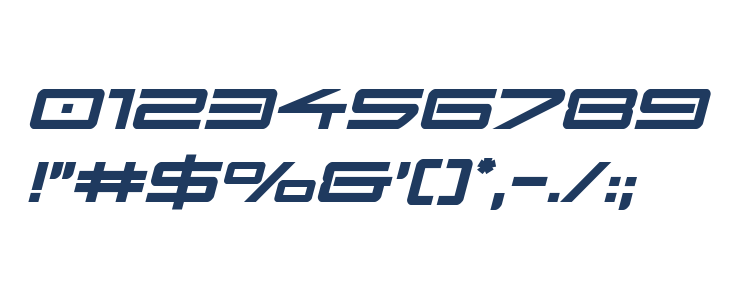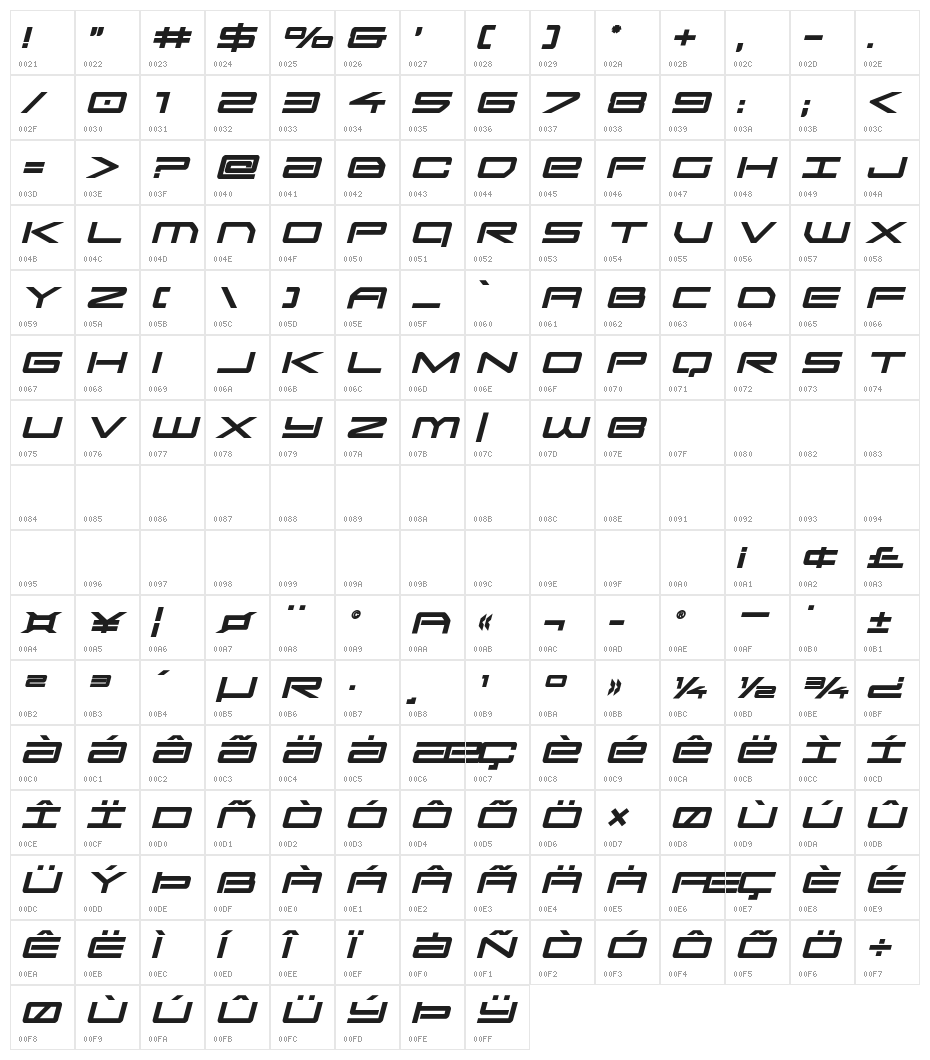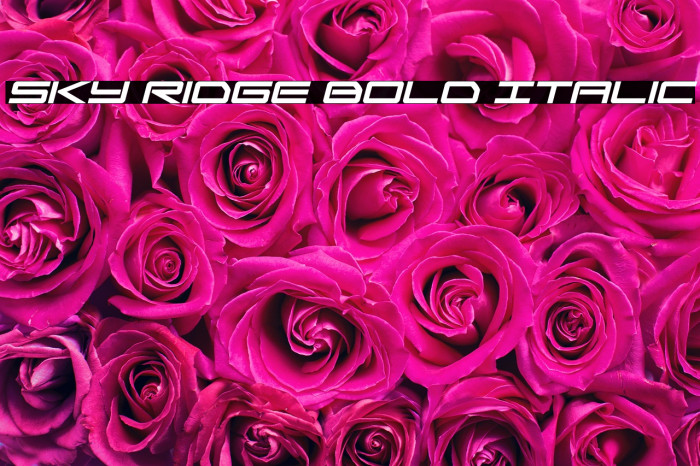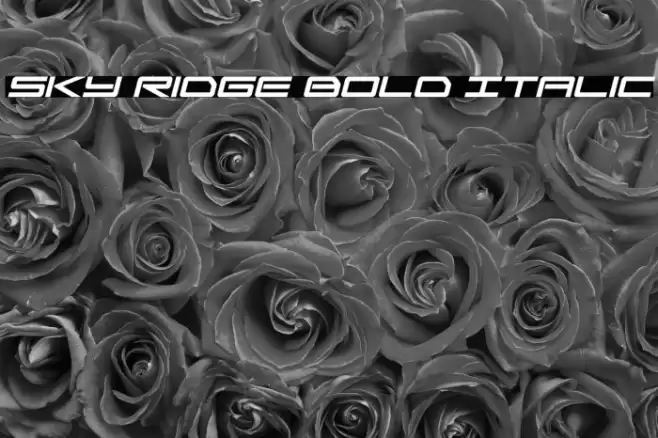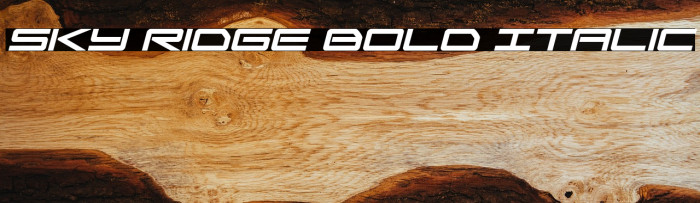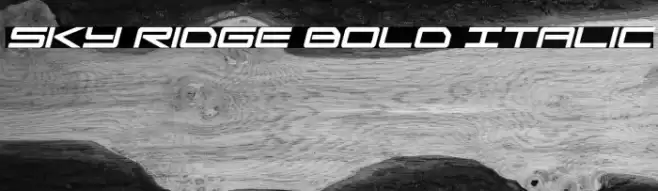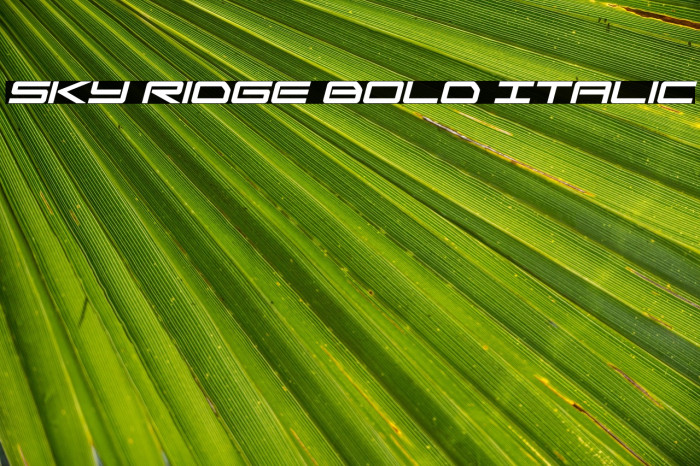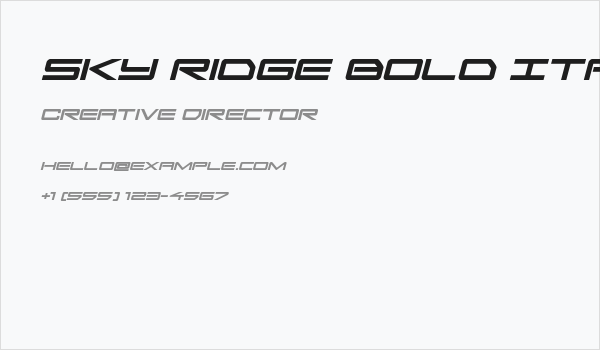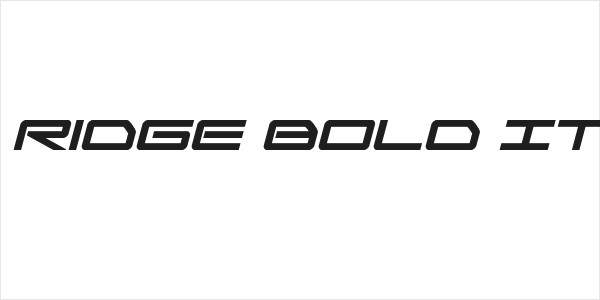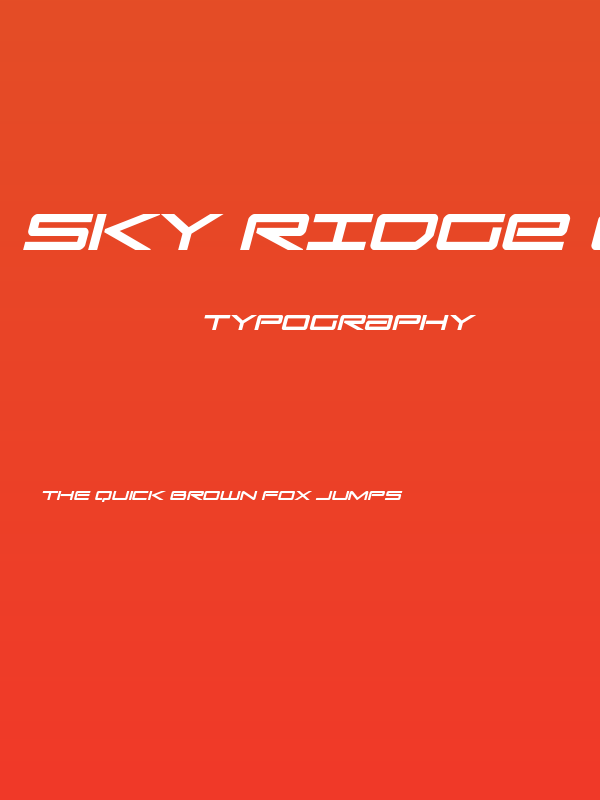
Sky Ridge Bold Italic Font
Sky Ridge Bold Italic Description
This font features a futuristic and sleek design, characterized by its bold and italicized style. The letters are slightly slanted, giving a sense of motion and dynamism. The strokes are consistent in thickness, providing a uniform appearance across all characters. The font has a geometric structure with sharp angles and clean lines, which adds to its modern and tech-inspired aesthetic. The numbers and special characters maintain the same stylistic elements, ensuring cohesion throughout. This font is ideal for projects that aim to convey a sense of innovation and forward-thinking.